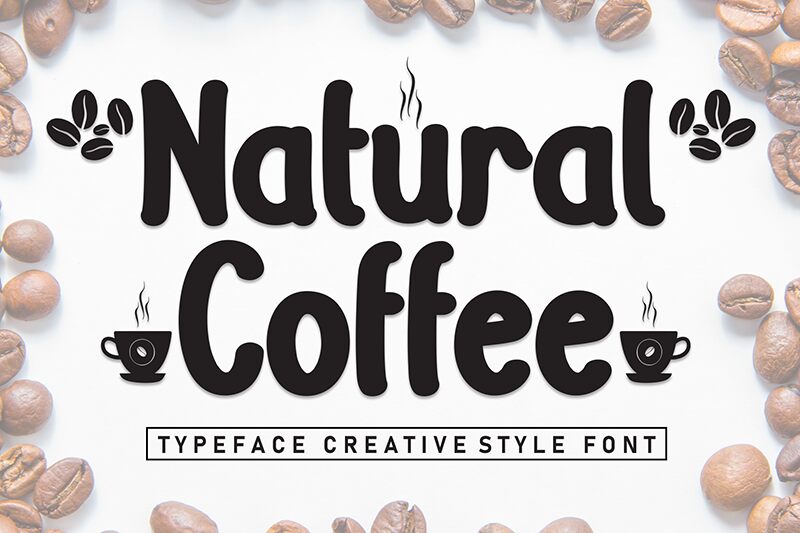
Natural Coffee
Natural Coffee font from Andi Moz blends natural and artistic expression in every letter. This brush typeface incorporates a dynamic, hand-drawn appearance and an organic feel that conveys a friendly aura to the demanding audience. When paired with its casual vibe, the font produced by Moz tends to resemble designs drawn on sandboards back in the day, or packaging inspired by retro sides.
Whether you like your coffee hot or iced, you can sit down and relax as you use this free handwritten font for greeting and invitation cards for birthdays or last-minute plans and friends’ get-togethers projects. It can also be used for printed ads with retro inspirations (travel agencies etc.), identity branding designs such as logo names, tags, stickers for fruits and veggies stores (eco-friendly shops), packaging items including candy bars packs, milk cartons etc., posters created digitally with personal websites & portfolios included among others!